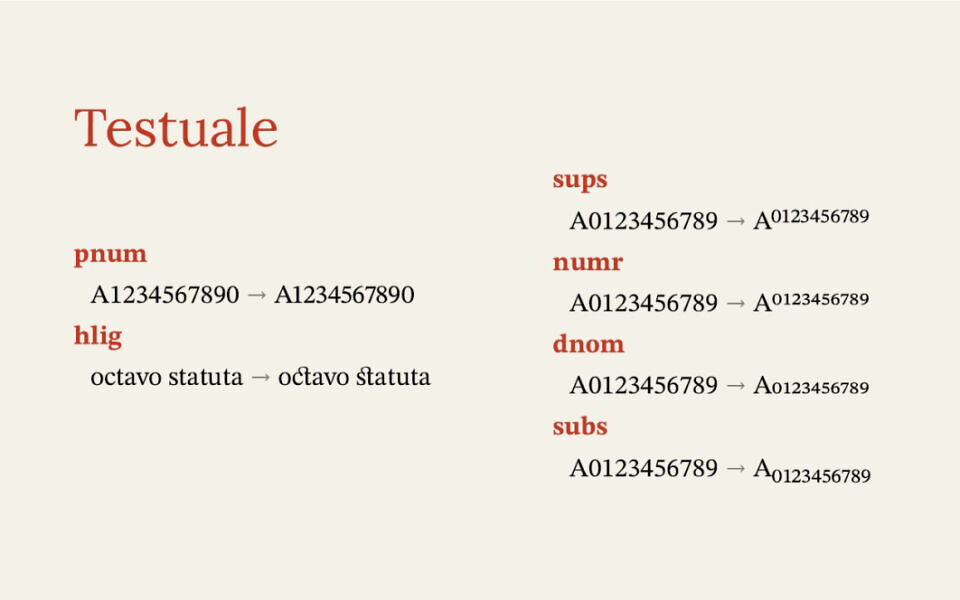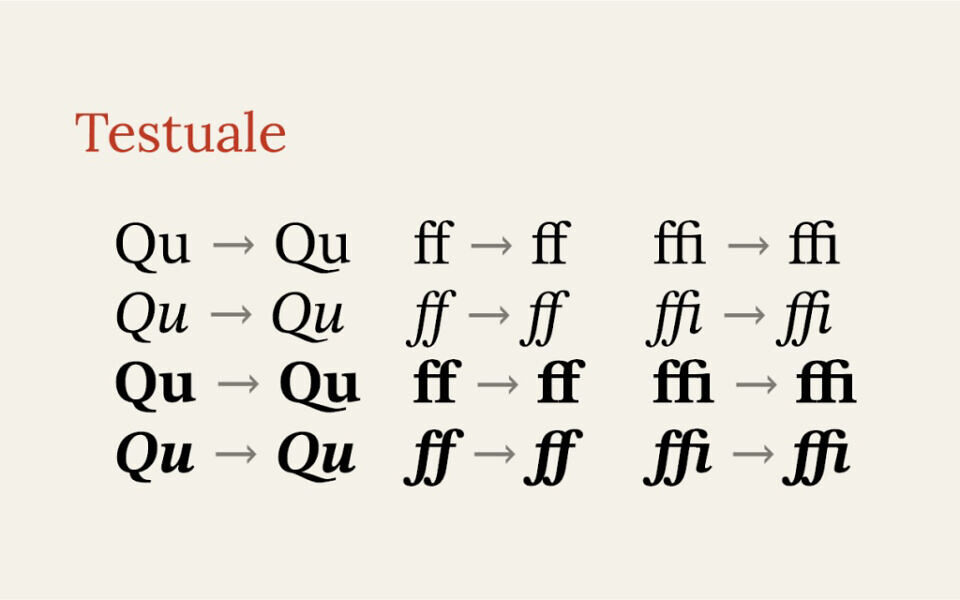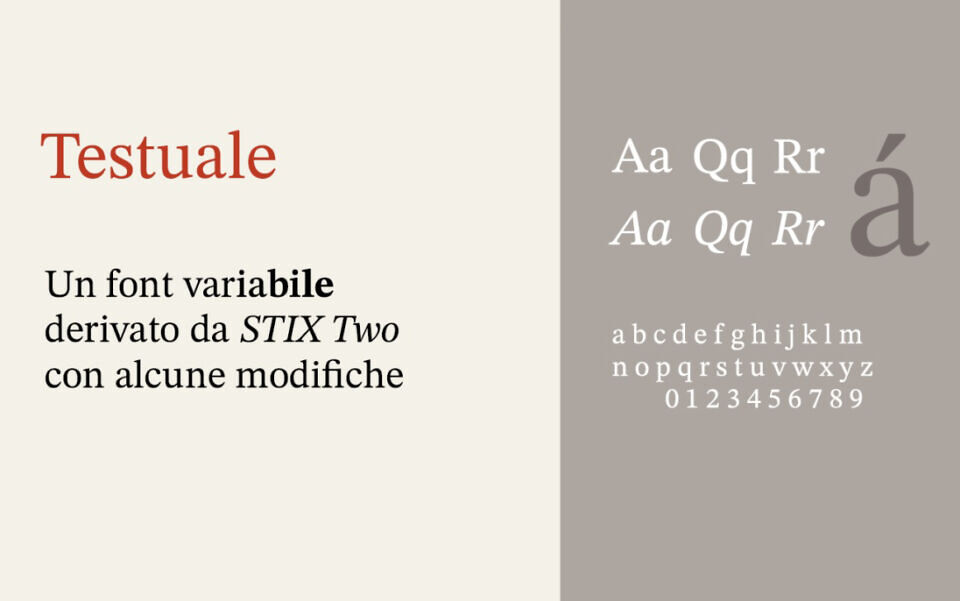
Testuale is a free slick variable serif font based on STIX Two, blending old-school charm with modern flex. Its sharp letterforms and clean structure make it super readable, whether on screen or paper.
With a bunch of weights and styles, it’s a go-to for everything from books and science journals to fancy branding. Those classy serifs and chill proportions keep it versatile—perfect for nitty-gritty typesetting or bold typography.